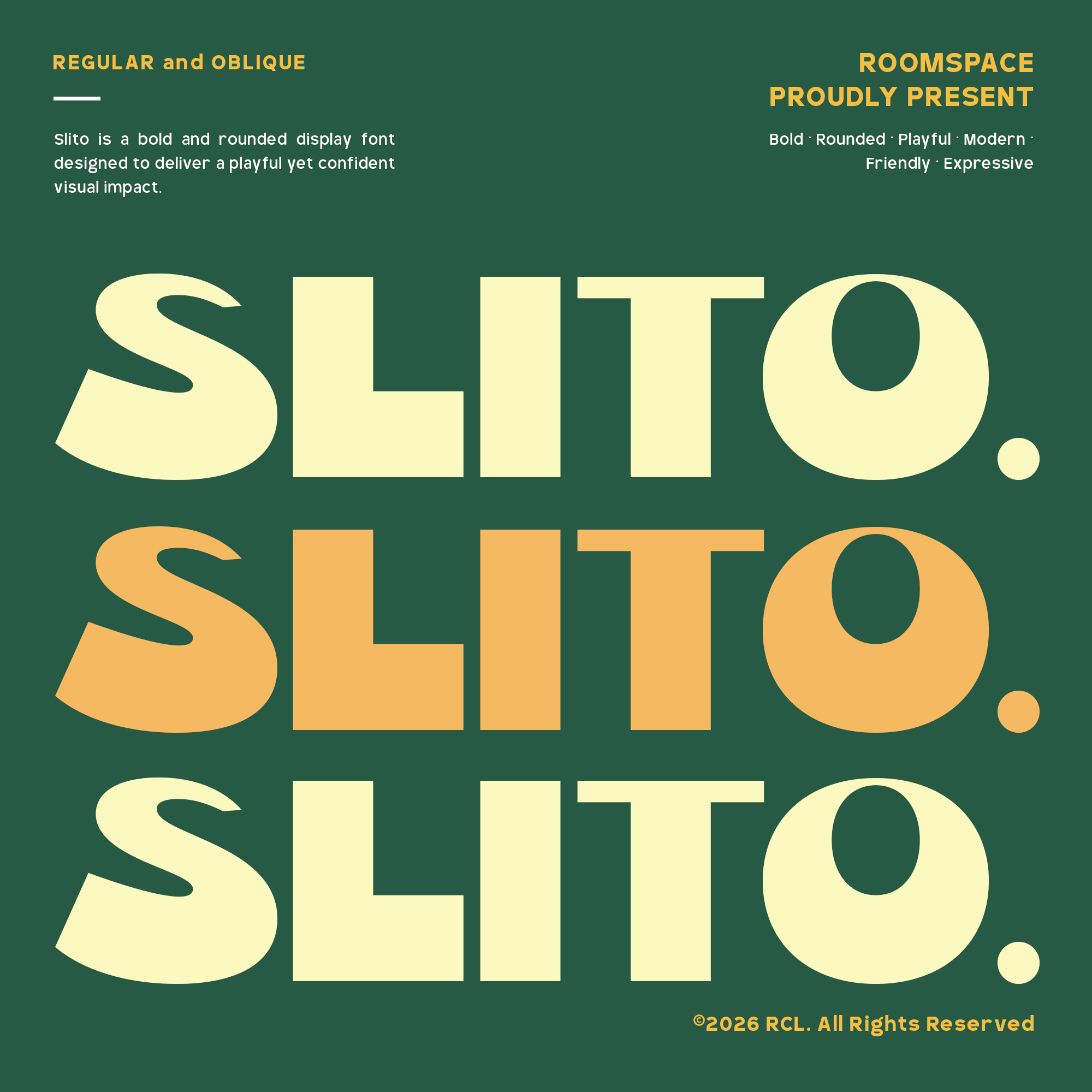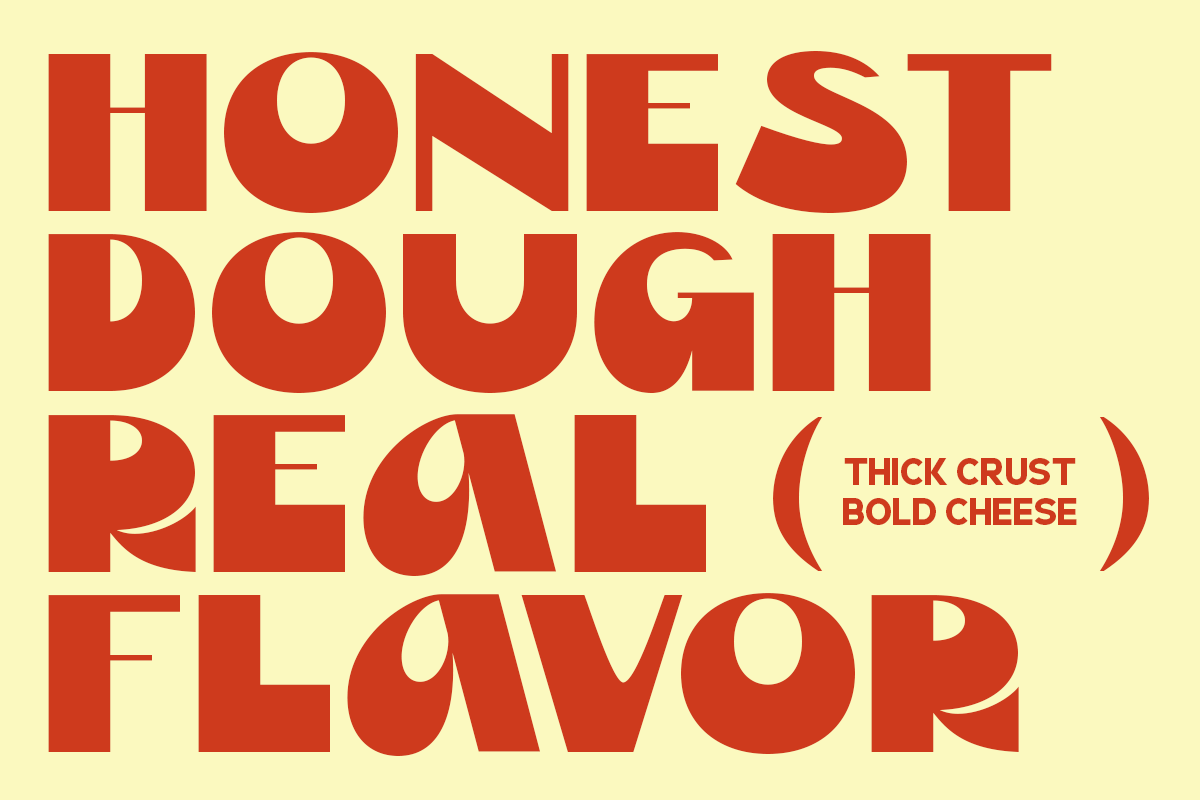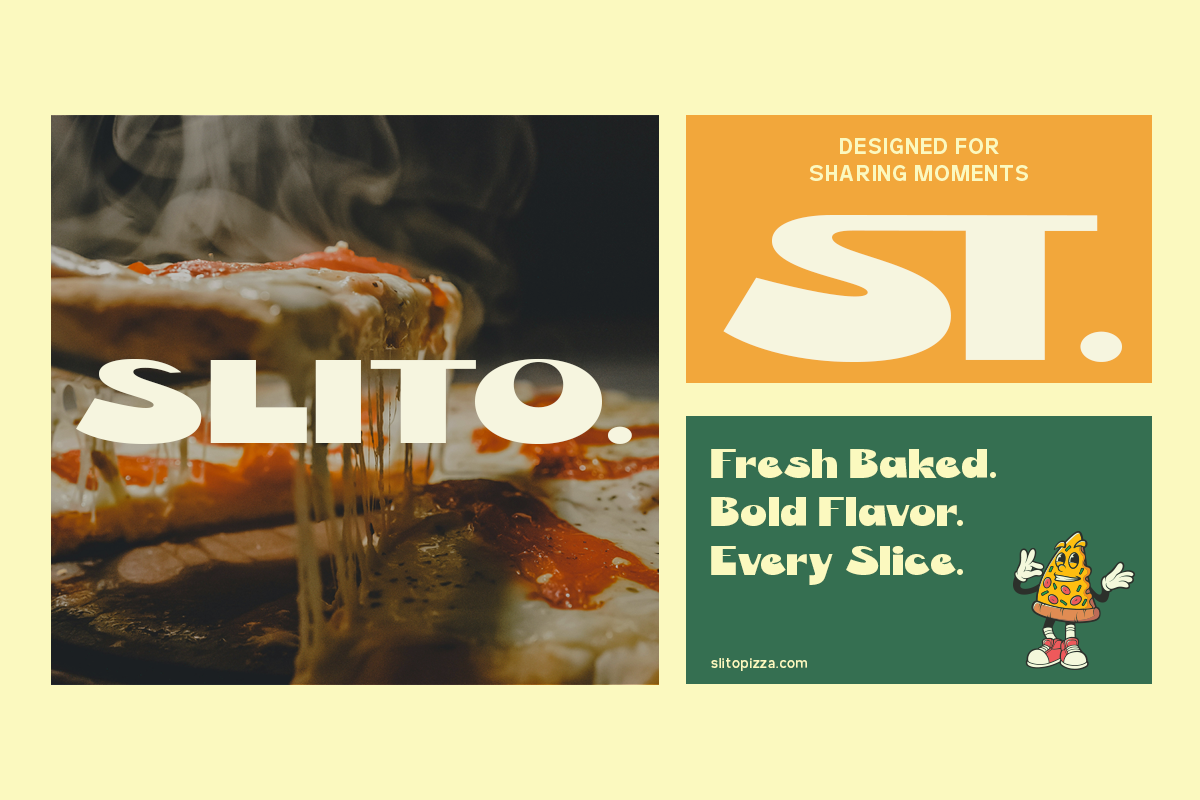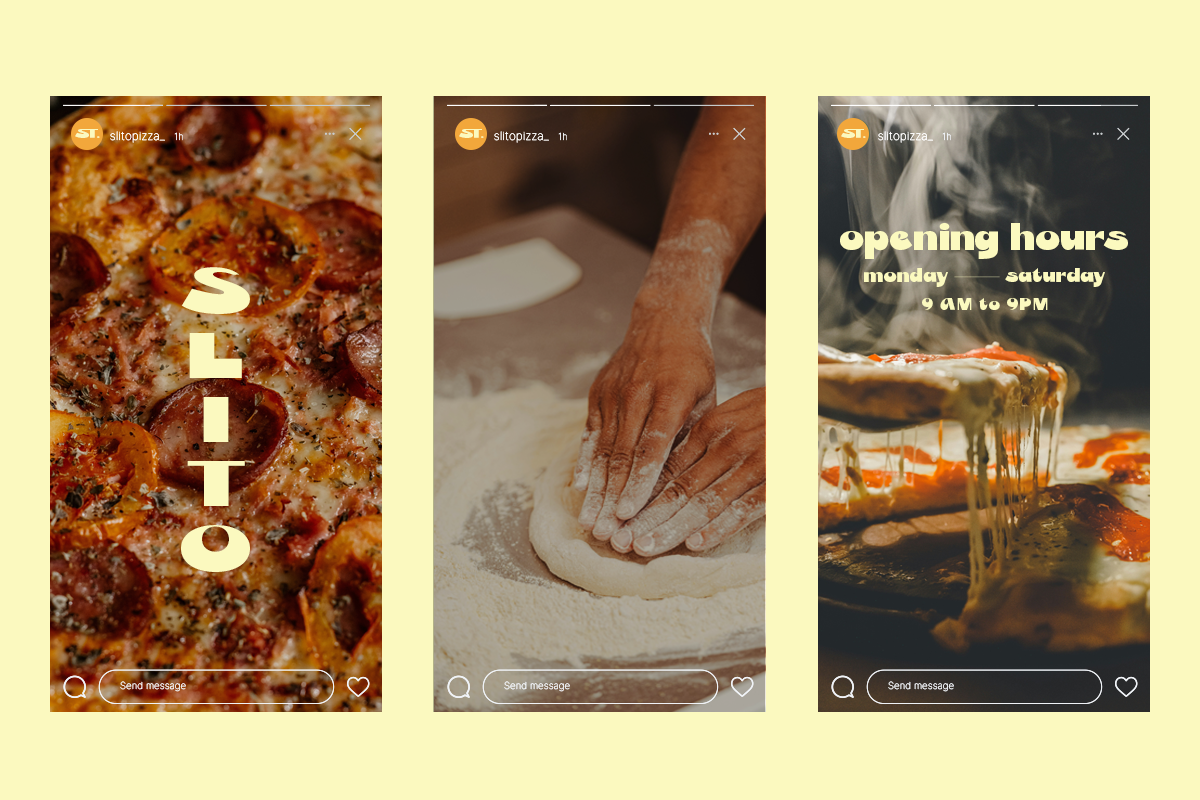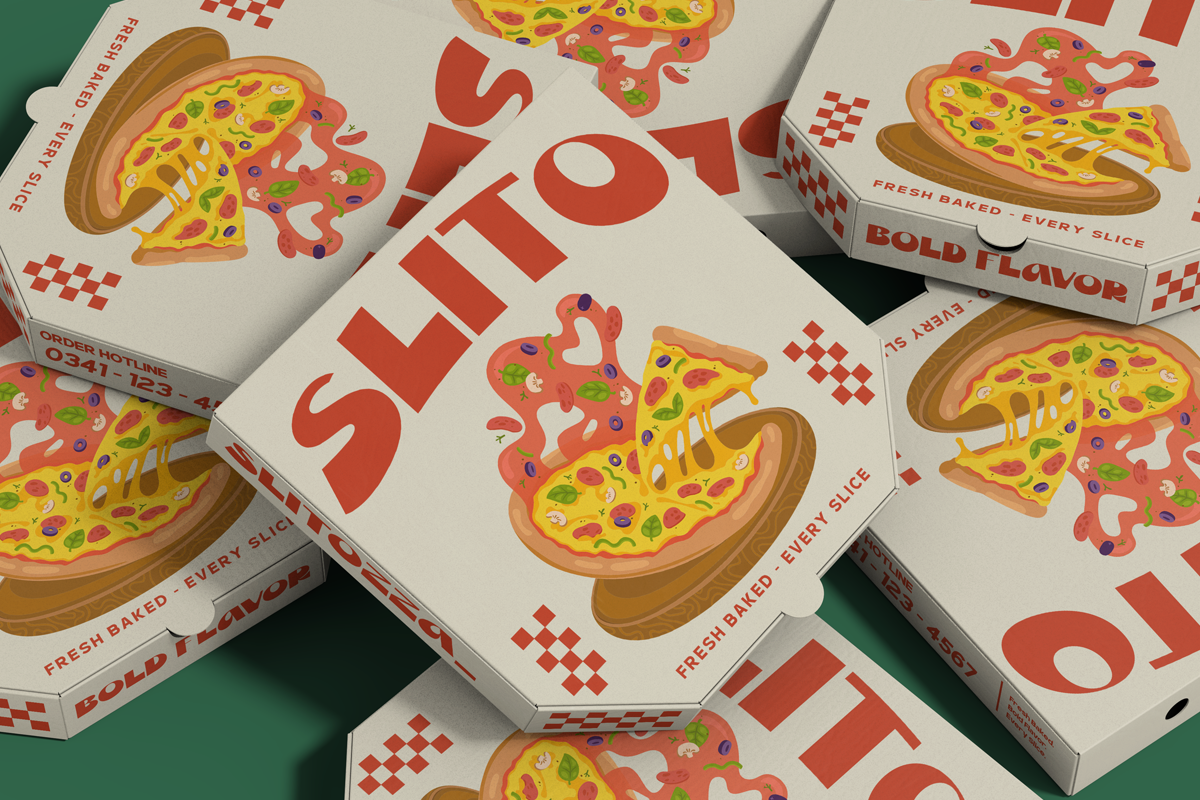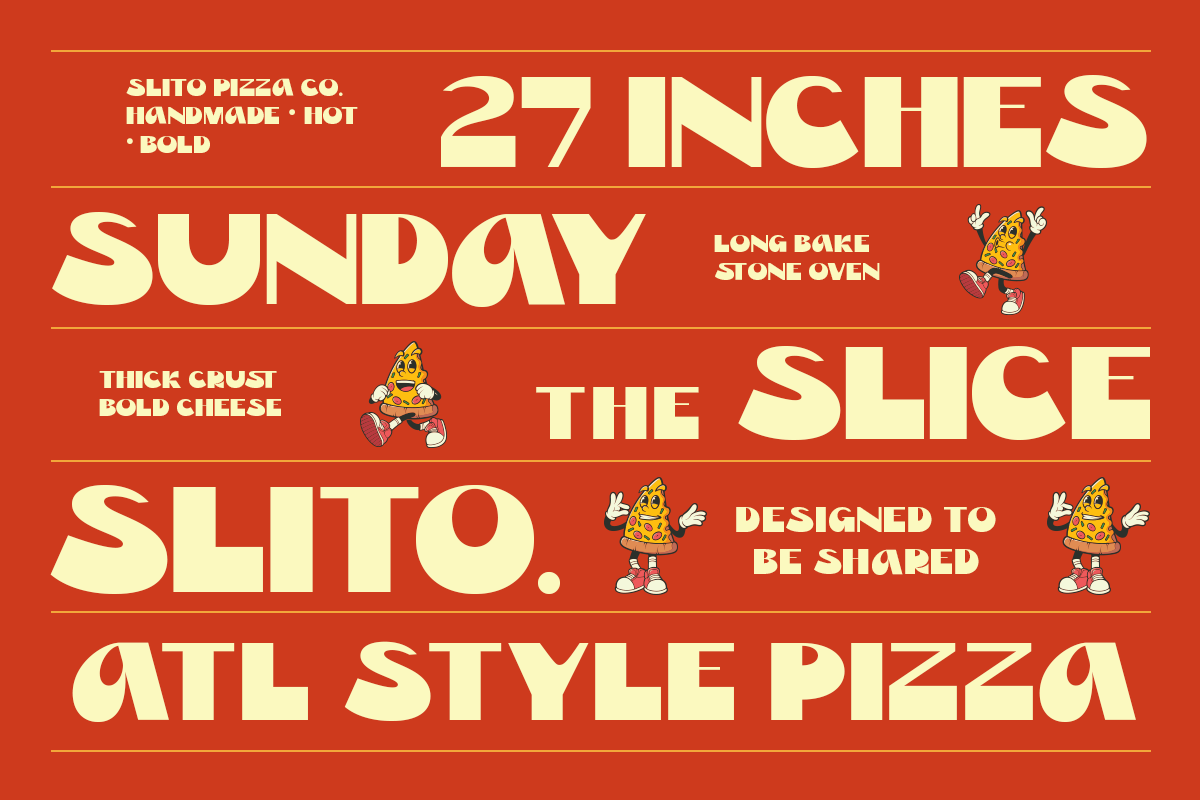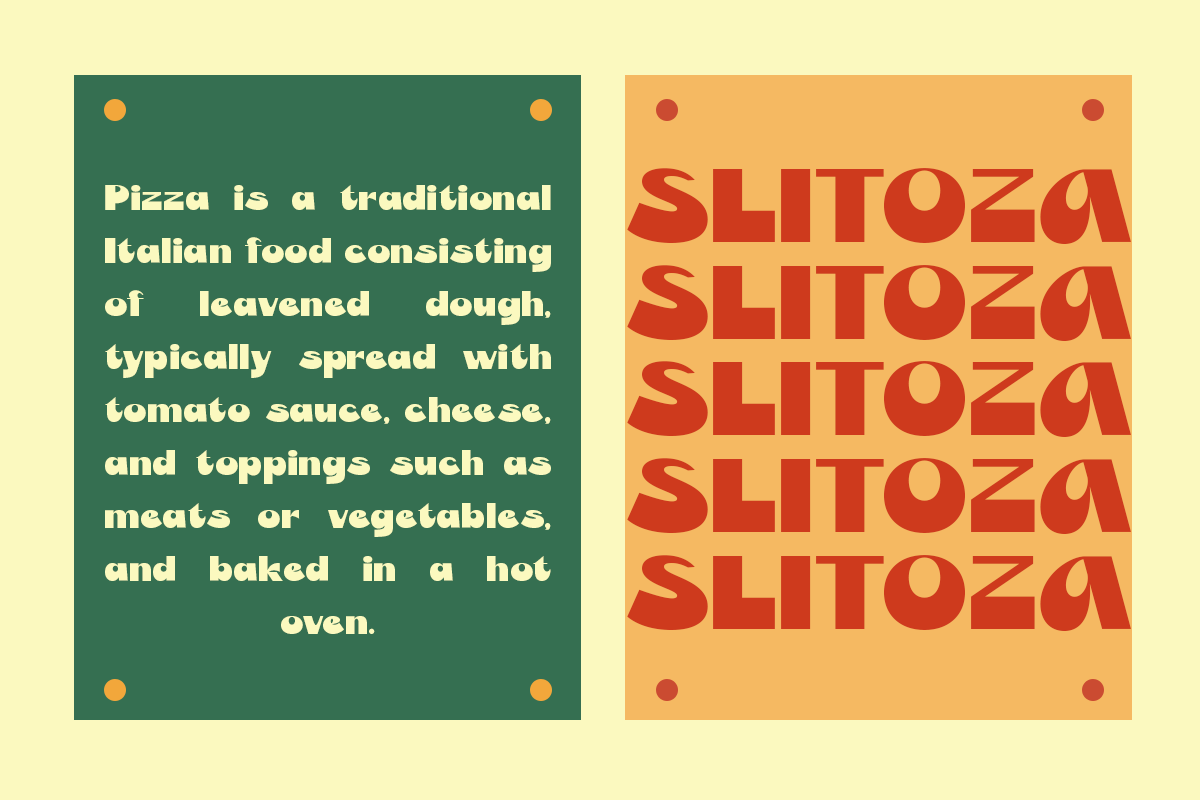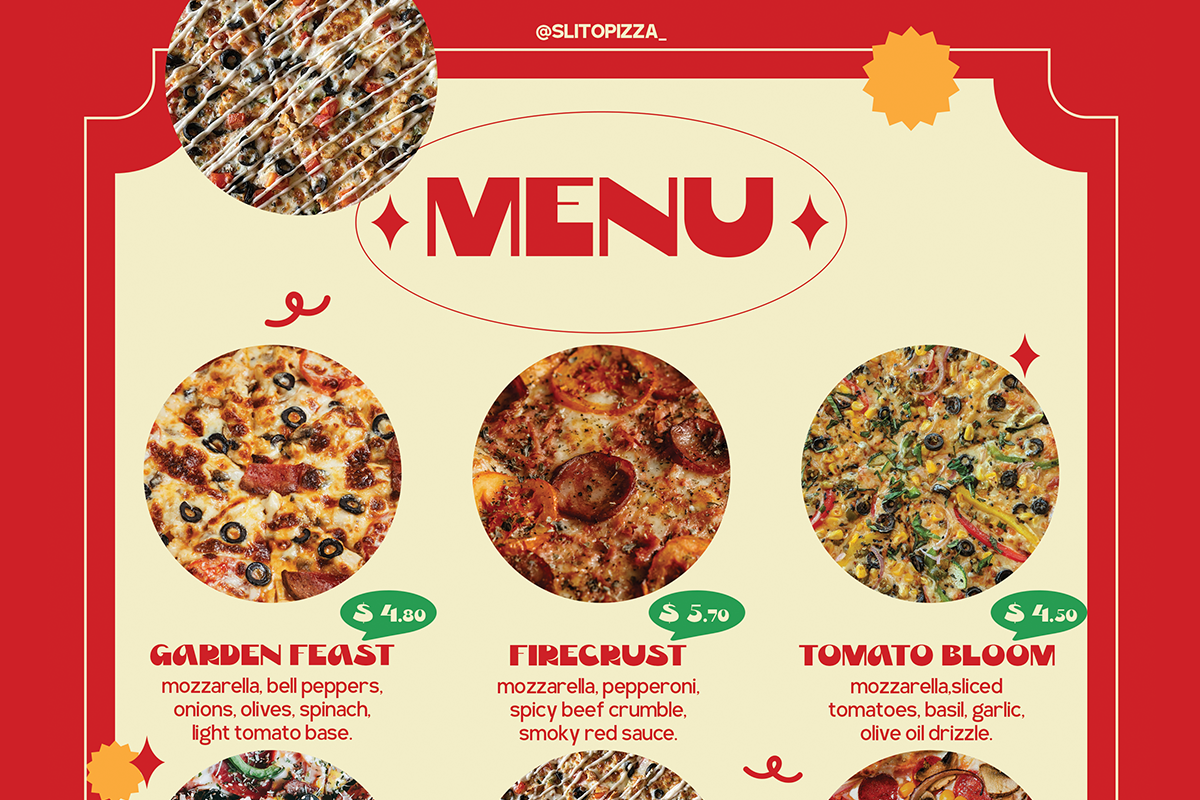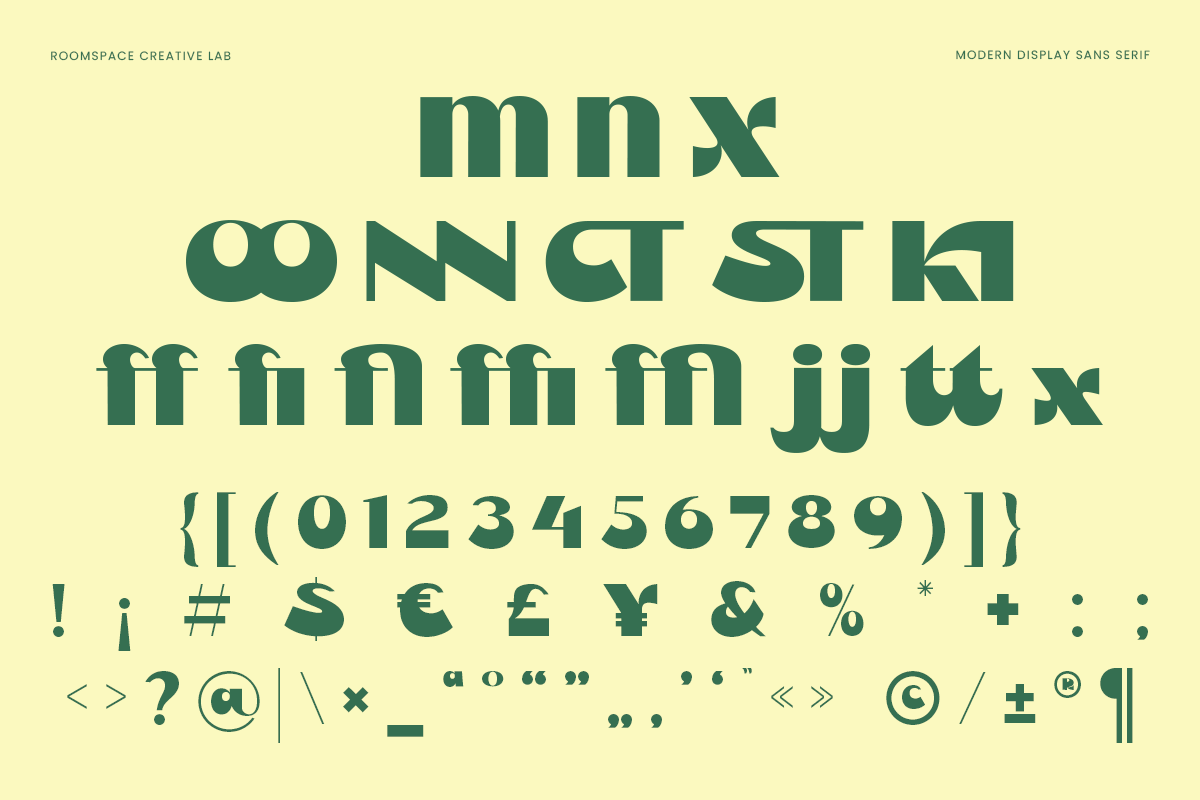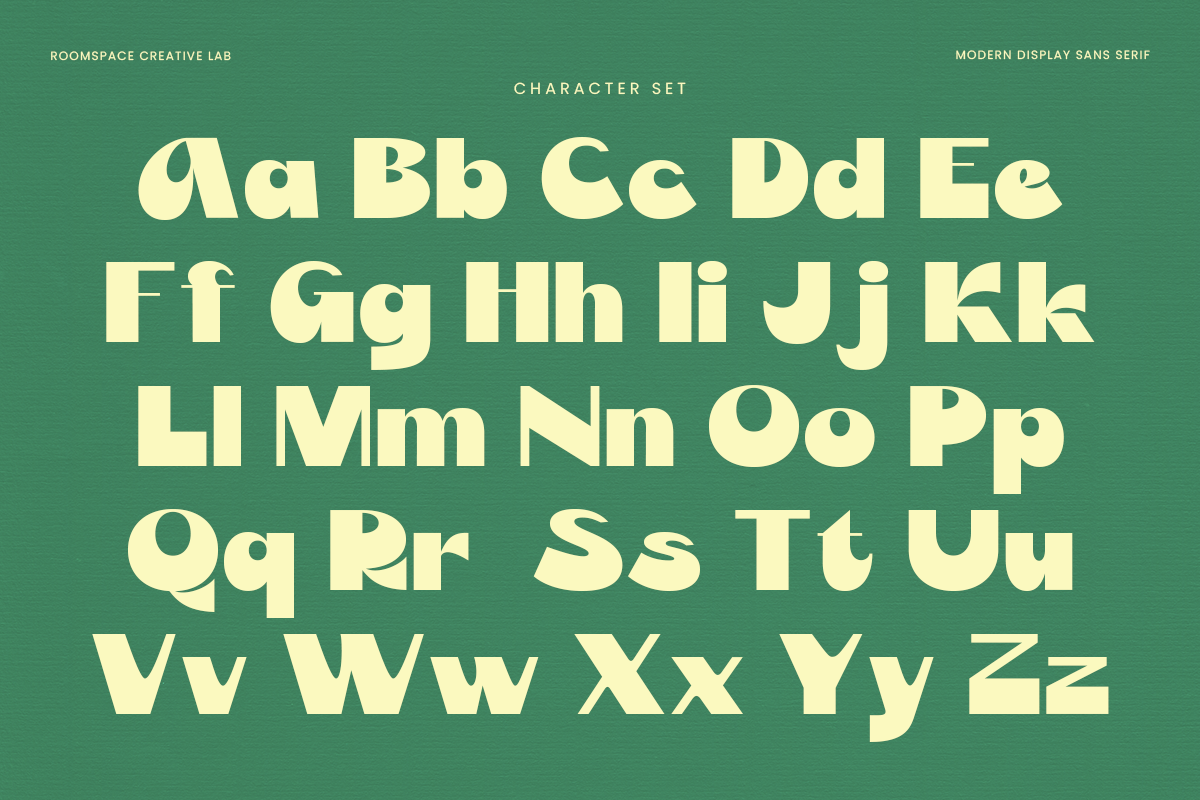
Slito Font - Bold Rounded Branding for Pizza
Slito is a bold rounded display font designed to deliver a playful yet confident visual impact. Featuring soft curves, wide shapes, and expressive letterforms, Slito brings a friendly modern tone to any creative project. With Regular and Oblique styles included, this font is perfect for branding, packaging, posters, logos, social media graphics, and eye-catching headlines. Slito is built for designs that need personality, clarity, and strong presence.
• Regular & Oblique styles
• Bold rounded display design
• Uppercase & lowercase
• Multilingual support
• Clean spacing & smooth curves
Slito Font is a bold rounded display typeface that includes Regular and Oblique styles, designed with soft curves and wide shapes for a modern look. It supports both uppercase and lowercase letters, offers multilingual capabilities, and is available in OTF, TTF, and WOFF formats.